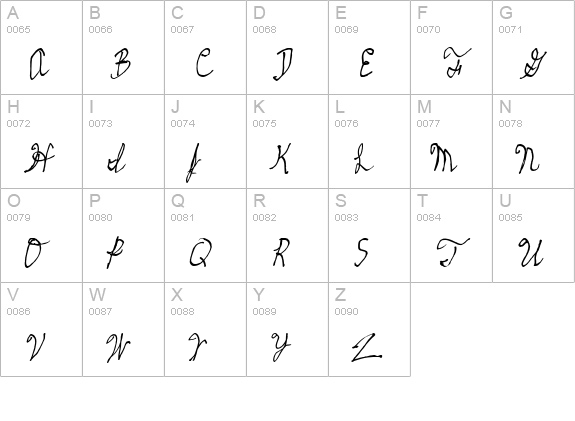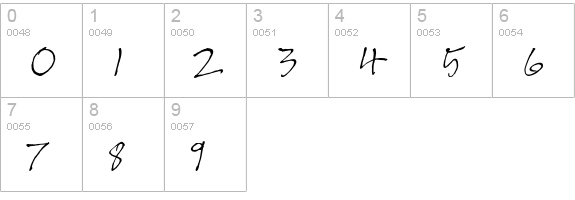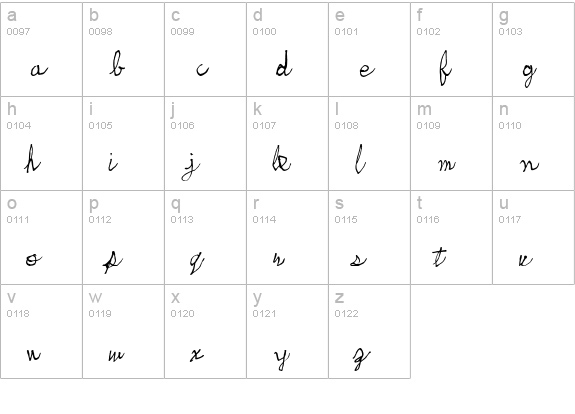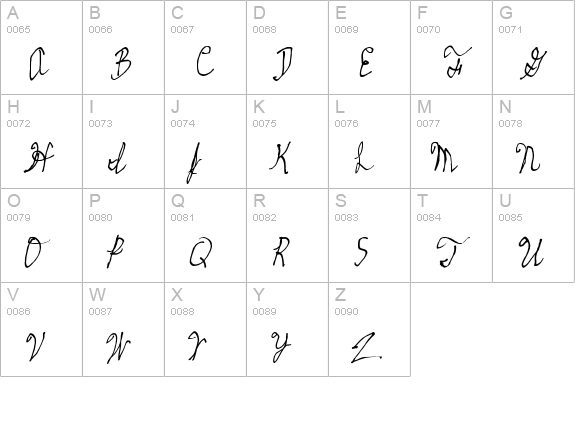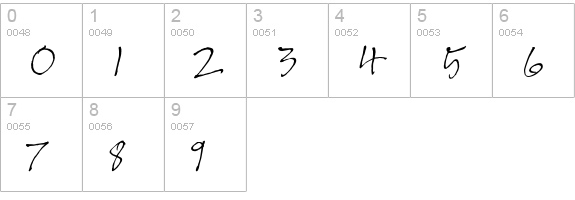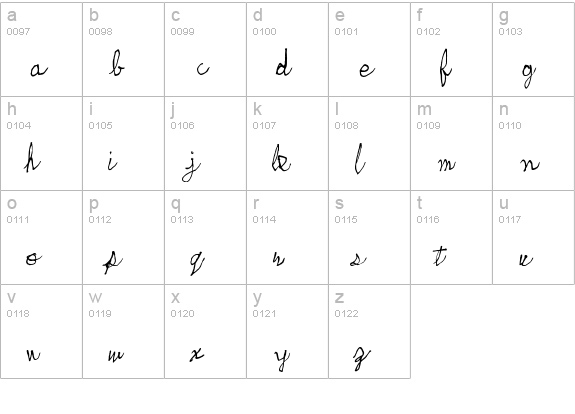
Introducing the remarkable Skeetch font, a captivating and expressive typeface that effortlessly captures the essence of creativity and imagination. With its unique hand-drawn style, this font is a perfect choice for adding a touch of whimsy to your designs. Skeetch font features a delightful combination of playful curves and quirky details, giving your text a vibrant and dynamic feel. It is a versatile font that can be used for various design projects such as logos, posters, invitations, and more. Whether you're aiming for a fun and lighthearted look or aiming to evoke a sense of childlike wonder, Skeetch font will surely exceed your expectations. One of the most impressive aspects of Skeetch font is that it is available for free! Yes, you read that right. This remarkable font can be freely downloaded from FontsMarket.com. This means that you can easily enhance your designs without any financial burden. The accessibility and availability of Skeetch font make it an ideal choice for designers, students, and anyone else who is looking for a high-quality, eye-catching font without breaking the bank. The free download option allows you to explore the endless possibilities of this font and experiment with different design ideas. Don't miss out on the opportunity to add a touch of whimsy and creativity to your projects. Download Skeetch font for free at FontsMarket.com today and let your imagination run wild. Let this extraordinary font elevate your designs and bring them to life like never before.